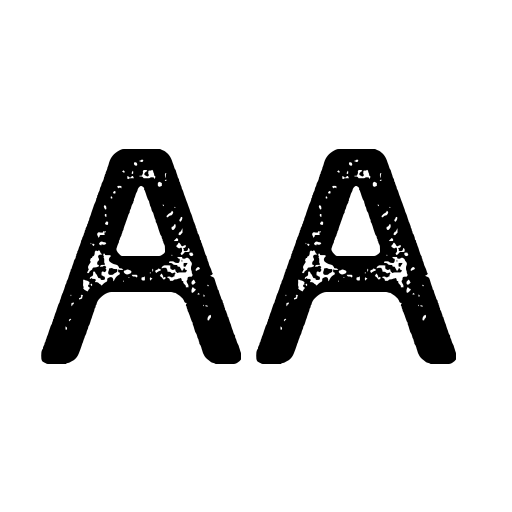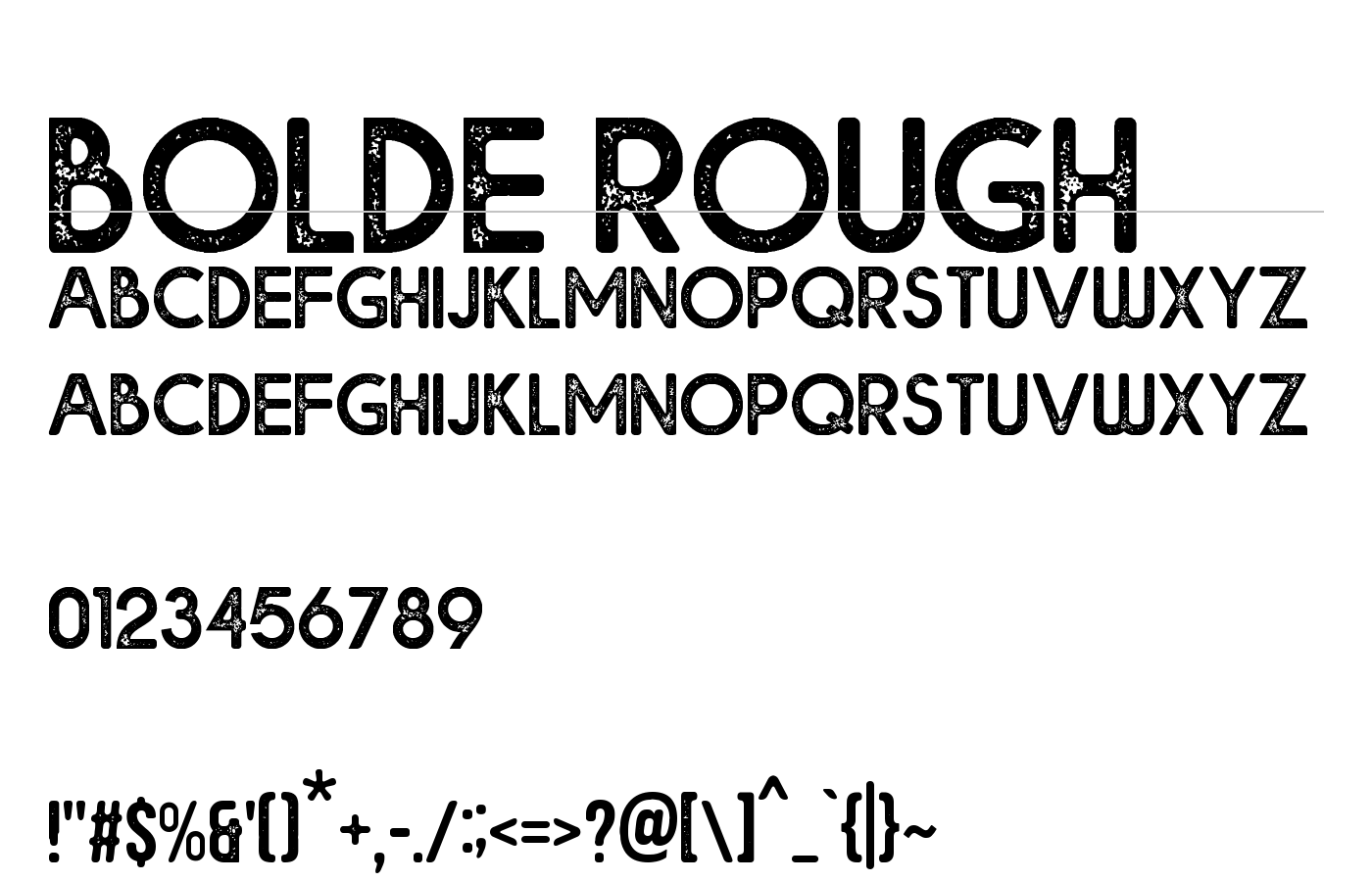
Bolde Rough is a bold, sans serif font with a distinct rough texture that adds a handcrafted, vintage feel to its geometric letterforms. Its even stroke weight and clean shapes combined with the distressed effect make it ideal for eye-catching headlines, branding, and creative projects that seek a rugged yet modern aesthetic. This font works well in logos, posters, and packaging where a strong, edgy personality is desired without sacrificing clarity.
Bolde Rough Font
About Bolde Rough Font